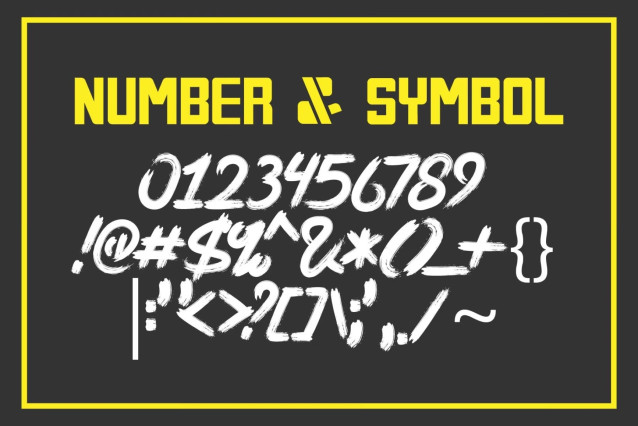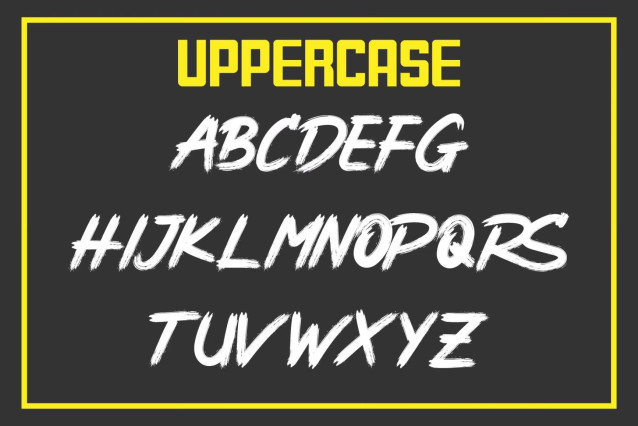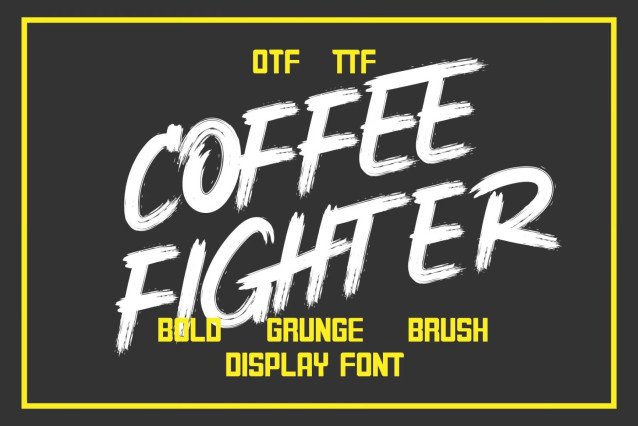
Create bold and expressive designs with Coffee Fighter Font, a brush grunge display typeface featuring rough brush strokes, distressed details, and an authentic handmade style.
Coffee Fighter is designed for creators who want a powerful urban look with a combination of painted brush lettering and grunge texture. Perfect for streetwear, branding, merchandise, posters, logos, and creative digital projects.
✓ Brush stroke typography
✓ Grunge distressed style
✓ Rough handwritten appearance
✓ Urban street aesthetic
✓ Bold display font
✓ Logo-friendly design
✓ Uppercase & lowercase letters
✓ Numbers & punctuation included